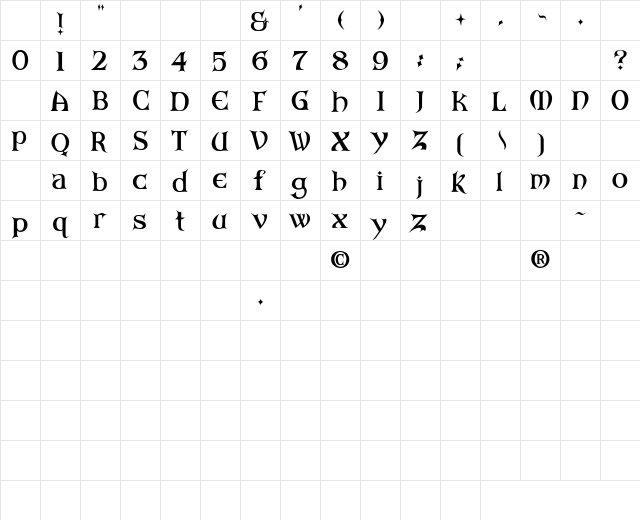
Complete ARKHAM Bold glyph index. Displaying only characters natively supported by ARKHAM Bold font.
ARKHAM is a composed and adaptable typeface that performs quietly and consistently across a wide range of design contexts. Its bold stroke weight gives it real presence on the page.